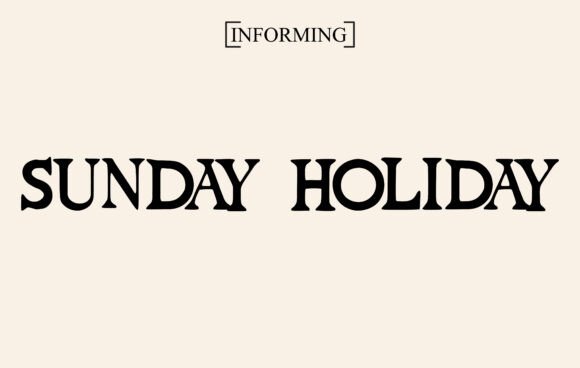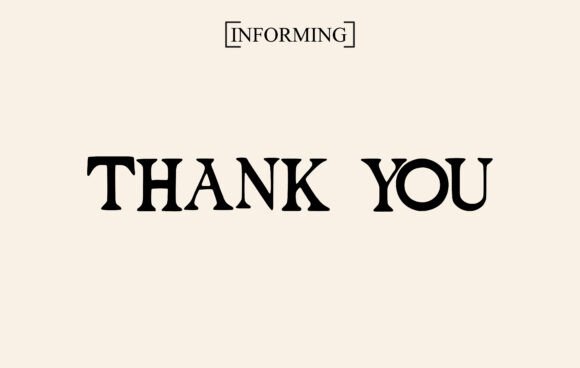
Introduction to Purelight Font
Have you ever stared at a blank canvas, desperate for the perfect font to bring your creative vision to life? That’s exactly where I was when I stumbled upon the Purelight Font – a game-changing design resource that has been revolutionizing the way I approach my projects. With its sleek, modern aesthetic and exceptional legibility, this font has quickly become a favorite among designers and creatives.
Whether you’re working on a high-end branding project or a simple social media graphic, the Purelight Font is the perfect addition to your design arsenal. Its versatility and high-quality design make it a valuable resource for any creative project, from magazine headlines to wedding invitations. And the best part? This stunning font is available for a free download, making it accessible to designers of all levels.
With its transparent background and clean design, the Purelight Font is a true design treasure that is sure to elevate your creative ideas to new heights. So why settle for anything less when you can have the Purelight Font on your side?
Key Features of Purelight Font
- High-quality vector design, perfect for creative projects and design resources.
- Features a transparent background, allowing for easy customization and composition.
- Perfect for use in logos, branding, and other design elements where a clean and modern font is required.
Honest Review: Purelight Font
As a designer, I’m always on the lookout for high-quality design resources that can elevate my creative projects. The Purelight Font is one such resource that caught my attention. In this review, I’ll share my honest thoughts on this font.
- ✨ High-quality design with crisp lines and clean typography.
- ✨ Transparent background, making it easy to use on any design surface.
- ⚠️ Limited font styles and weights, which might not be suitable for complex designs.
- ⚠️ Some users may find the font too minimalist, lacking personality.
Overall, the Purelight Font is a solid addition to any designer’s toolkit. While it may not be the most versatile font, its high-quality design and transparent background make it a great choice for simple designs or branding projects. If you’re looking for a free, high-quality font to add some sparkle to your creative project, the Purelight Font is definitely worth considering.
Tips for Getting the Most Out of Purelight Font
Experiment with different font sizes, colors, and styles to achieve a unique look. Use the transparent background feature to create visually appealing graphics and designs. Combine the Purelight Font with other design elements to create a cohesive and engaging creative project.
The Purelight Font is ideal for use in a variety of creative projects, including graphics, presentations, and documents. Its high-quality design and transparent background feature make it an excellent choice for designers and non-designers alike.